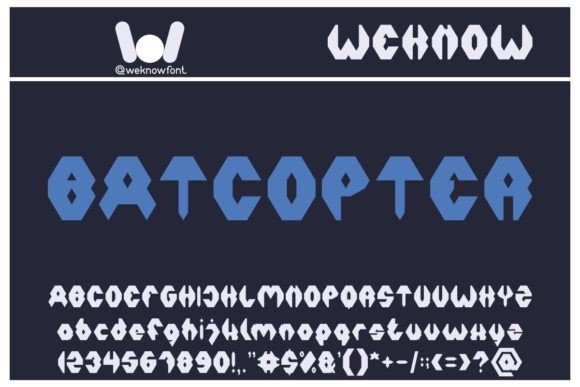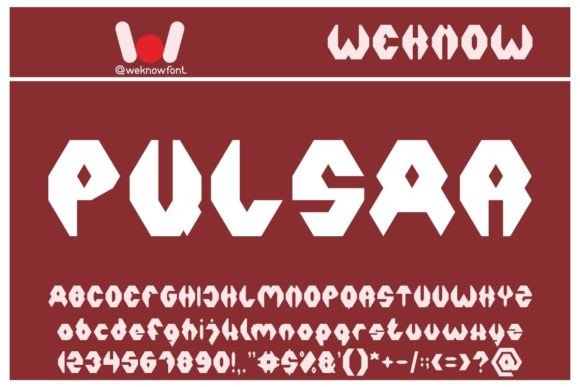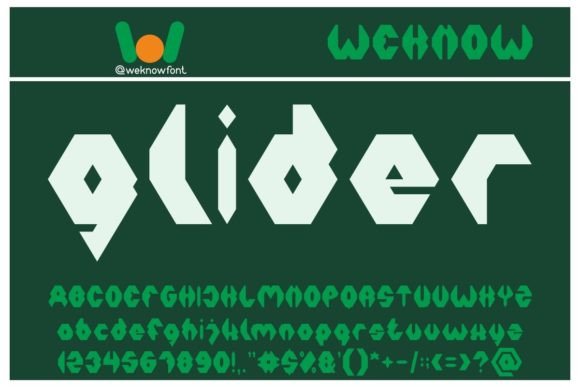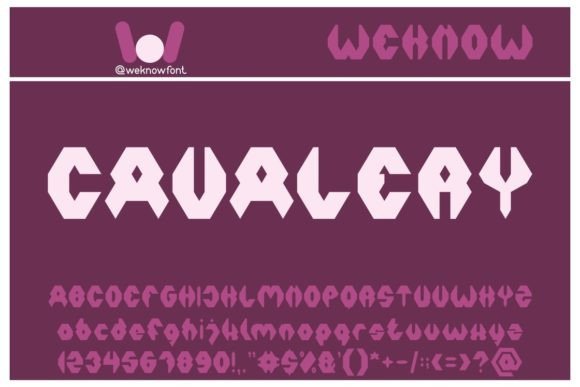
Aircraft Font: Elevate Your Designs with a Modern Techno Display Font
In the world of typography, a font can make or break a design. For designers and crafters looking to take their creative projects to new heights, the Aircraft Font is an exceptional choice. This modern techno display font is masterfully designed to become a true favorite among designers, and for good reason. With its sleek lines, futuristic aesthetic, and versatility, Aircraft Font has the potential to bring each of your creative ideas to the highest level.
What is Aircraft Font?
Aircraft Font is a contemporary techno display font that embodies the essence of modern design. Its unique and innovative style is characterized by clean lines, geometric shapes, and a futuristic feel. This font is perfect for designers who want to add a touch of sophistication and elegance to their projects. Whether you’re working on a logo, branding, advertising, or any other design project, Aircraft Font is an excellent choice.
Key Features of Aircraft Font
- Modern and sleek design: Aircraft Font boasts a modern and sleek design that is sure to turn heads. Its clean lines and geometric shapes give it a futuristic aesthetic that is perfect for contemporary designs.
- Highly legible: Despite its futuristic design, Aircraft Font is highly legible, making it suitable for use in a variety of applications, from body text to headings and titles.
- Versatile: Aircraft Font is an incredibly versatile font that can be used in a wide range of design projects, from logos and branding to advertising and packaging.
Why Choose Aircraft Font?
There are many reasons why designers and crafters should choose Aircraft Font for their projects. Here are just a few:
- Stand out from the crowd: With its unique and modern design, Aircraft Font is sure to make your project stand out from the crowd. Its futuristic aesthetic will grab attention and leave a lasting impression.
- Enhance your brand: If you’re looking to create a strong brand identity, Aircraft Font is an excellent choice. Its sleek and sophisticated design will help to elevate your brand and give it a professional edge.
- Easy to pair with other fonts: Aircraft Font is easy to pair with other fonts, making it a great choice for designers who like to experiment with different typography combinations.
How to Use Aircraft Font
Using Aircraft Font is easy. Here are a few tips to get you started:
- Use it as a display font: Aircraft Font is perfect for use as a display font. Use it for headings, titles, and other prominent text to add a touch of sophistication and elegance to your design.
- Experiment with different colors: Aircraft Font looks great in a variety of colors. Experiment with different colors and combinations to find the one that works best for your design.
- Pair it with other fonts: As mentioned earlier, Aircraft Font is easy to pair with other fonts. Try pairing it with a sans-serif font for a modern look or a serif font for a more traditional feel.
In conclusion, Aircraft Font is an exceptional modern techno display font that is sure to elevate your designs to new heights. Its sleek and sophisticated design, versatility, and ease of use make it a great choice for designers and crafters looking to add a touch of elegance and sophistication to their projects. Whether you’re working on a logo, branding, advertising, or any other design project, Aircraft Font is an excellent choice. So why not give it a try and see the difference it can make?